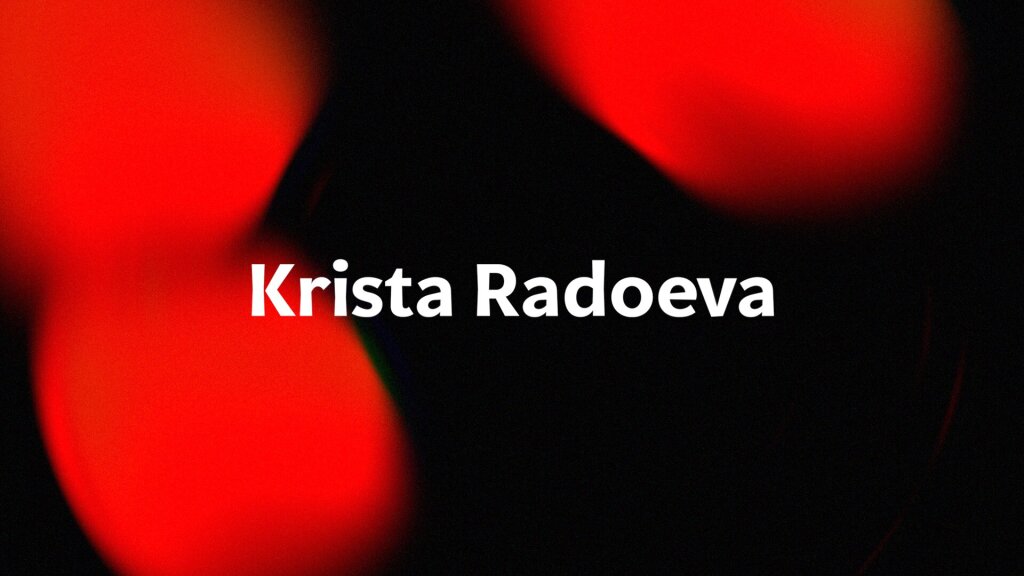
Many of us equate Cyrillic with Russian. But that’s not true. Krista Radoeva tells us that it’s finally time to realise that Cyrillic was never synonymous with Russian – let’s talk about localising and extending Cyrillic. The typedesigner provides some historical context on how certain characters came to be, show examples, and provide useful tips and resources for working with a richer and more diverse Cyrillic character set.
Krista Radoeva has a passion for extremely decorative letterforms, which she is sketching in tiny notebooks 24/7. After five years as a senior typeface designer at British foundry Fontsmith, Krista Radoeva set up her own studio in Sofia, Bulgaria, in 2020. There she specialises in fonts with Latin, Cyrillic and Greek, as well as teaching Cyrillic. Krista Radoeva studied BA Graphic Design at Central Saint Martins College of Art and Design in London and MA Type and Media at the Royal Academy of Art in The Hague.